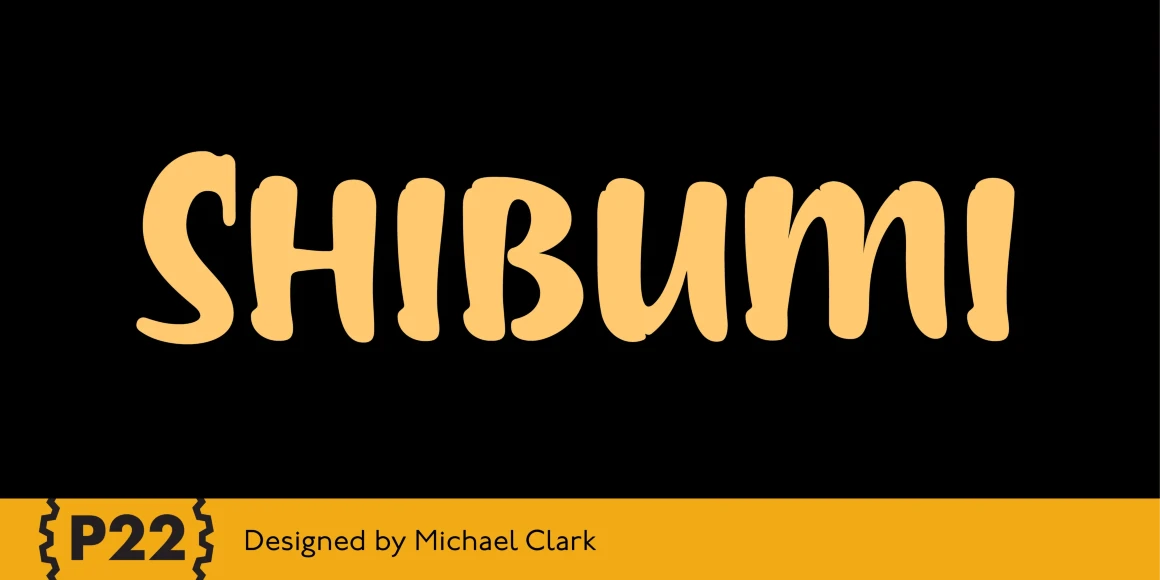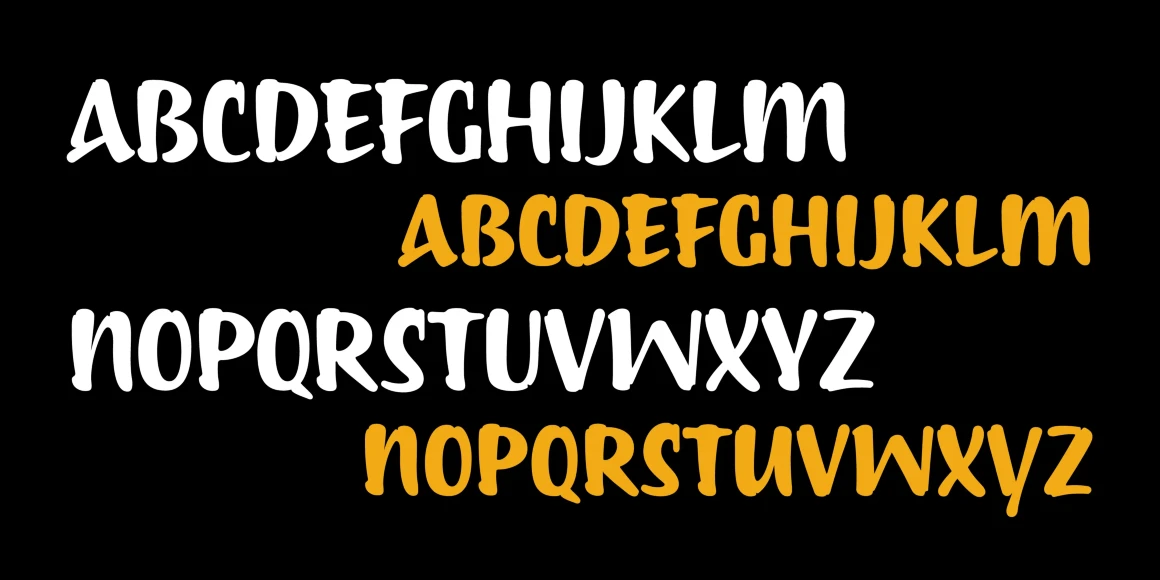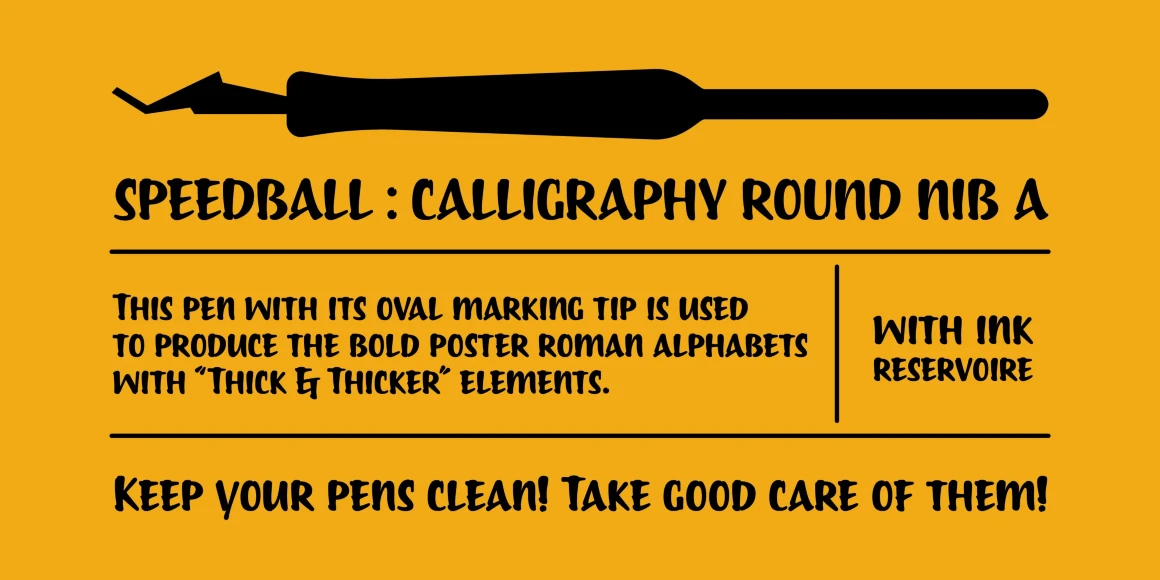
Shibumi
Shibumi is a brush titling face that has an “Eastern” feel. It was designed with a Speedball B (round nib) pen. Its shear weight exudes authority while the Eastern influence and gentle curves lend a sense of grace.
Designed by Michael Clark